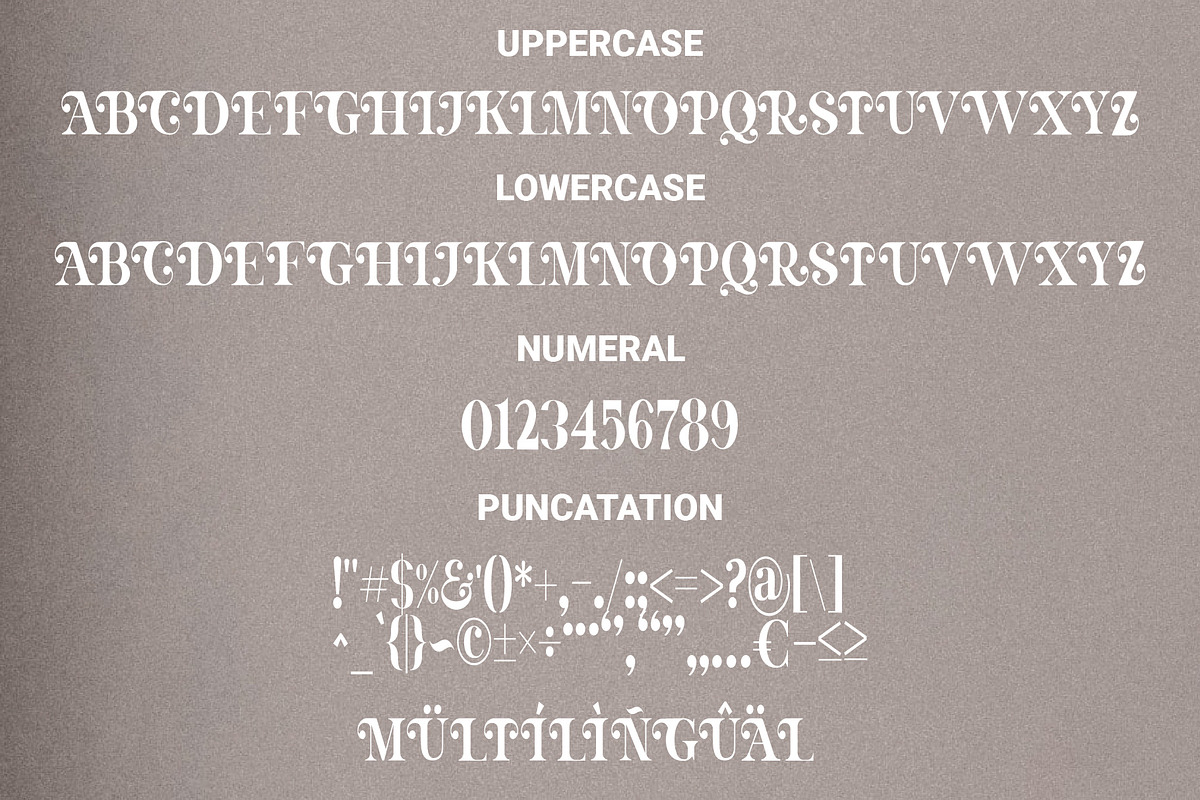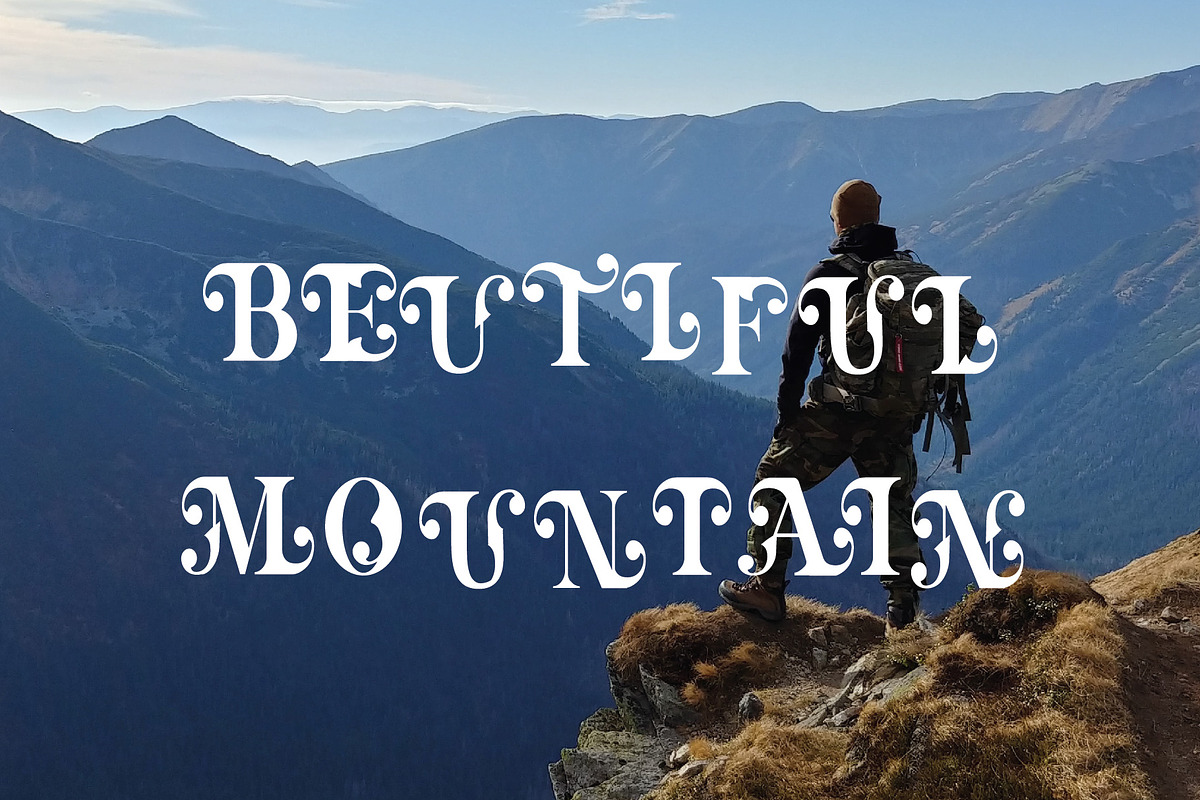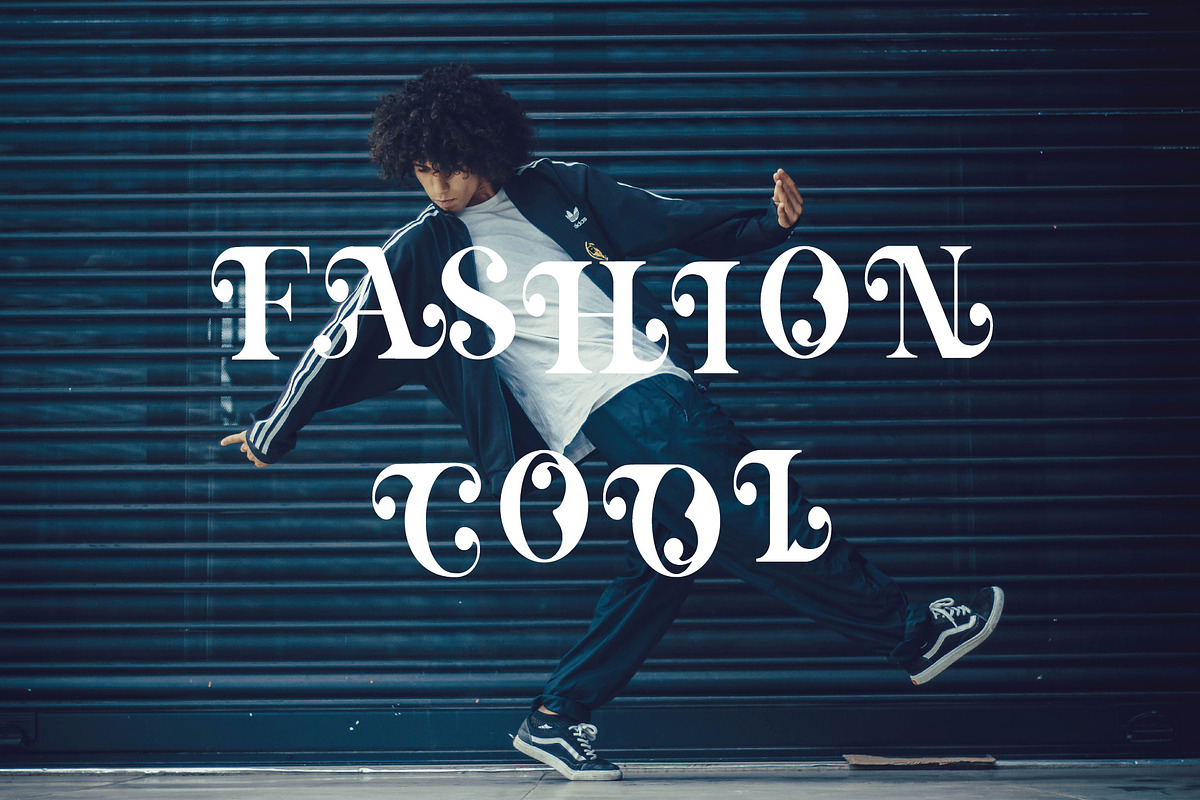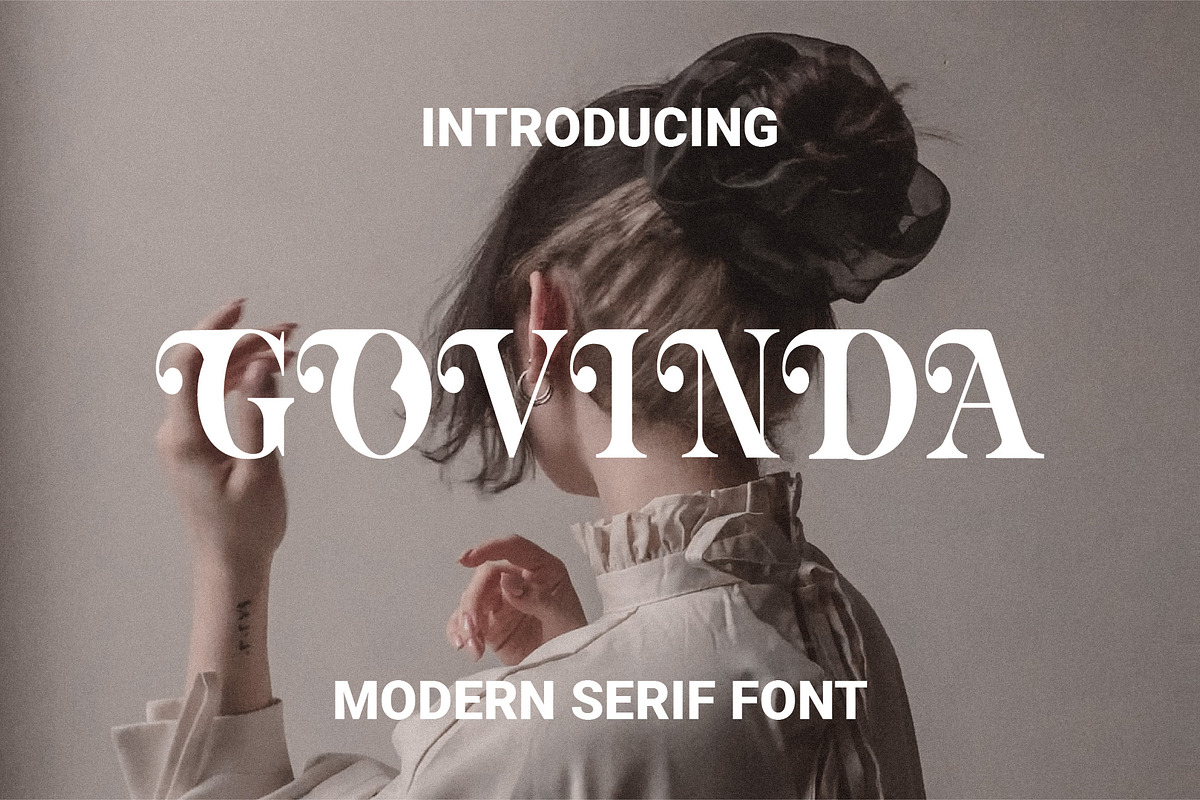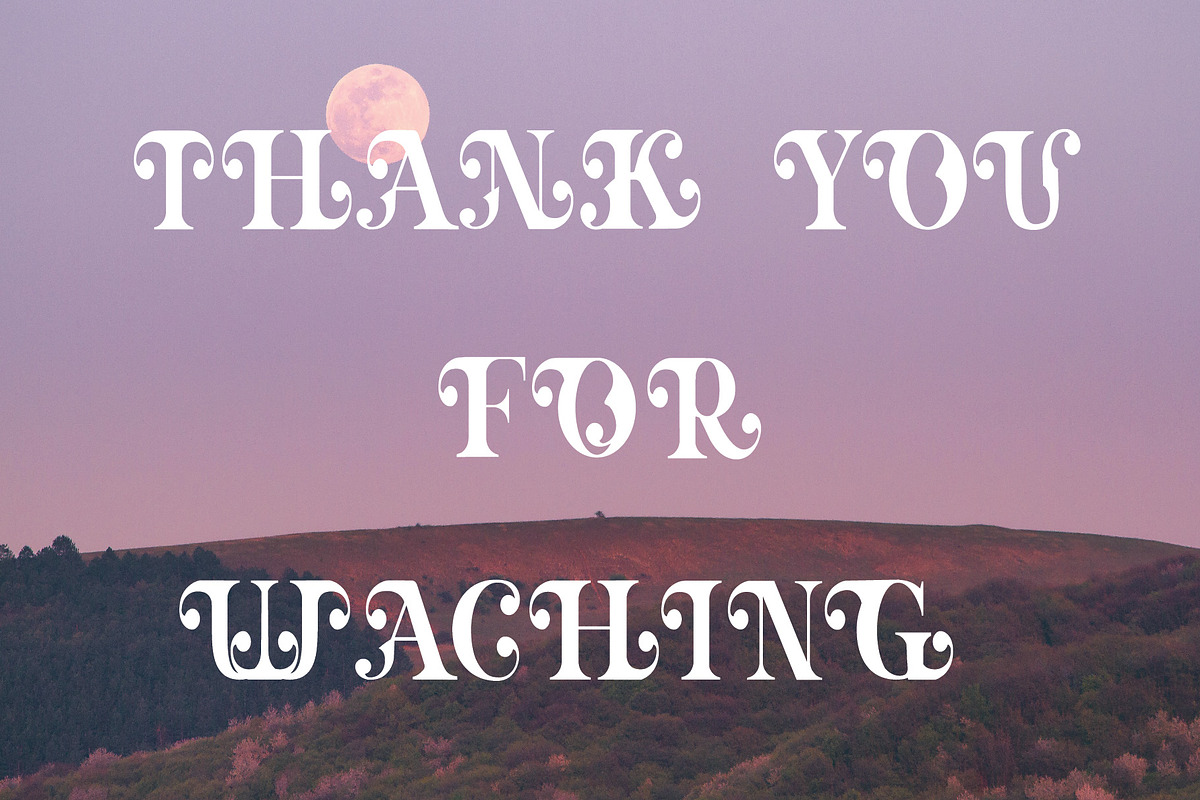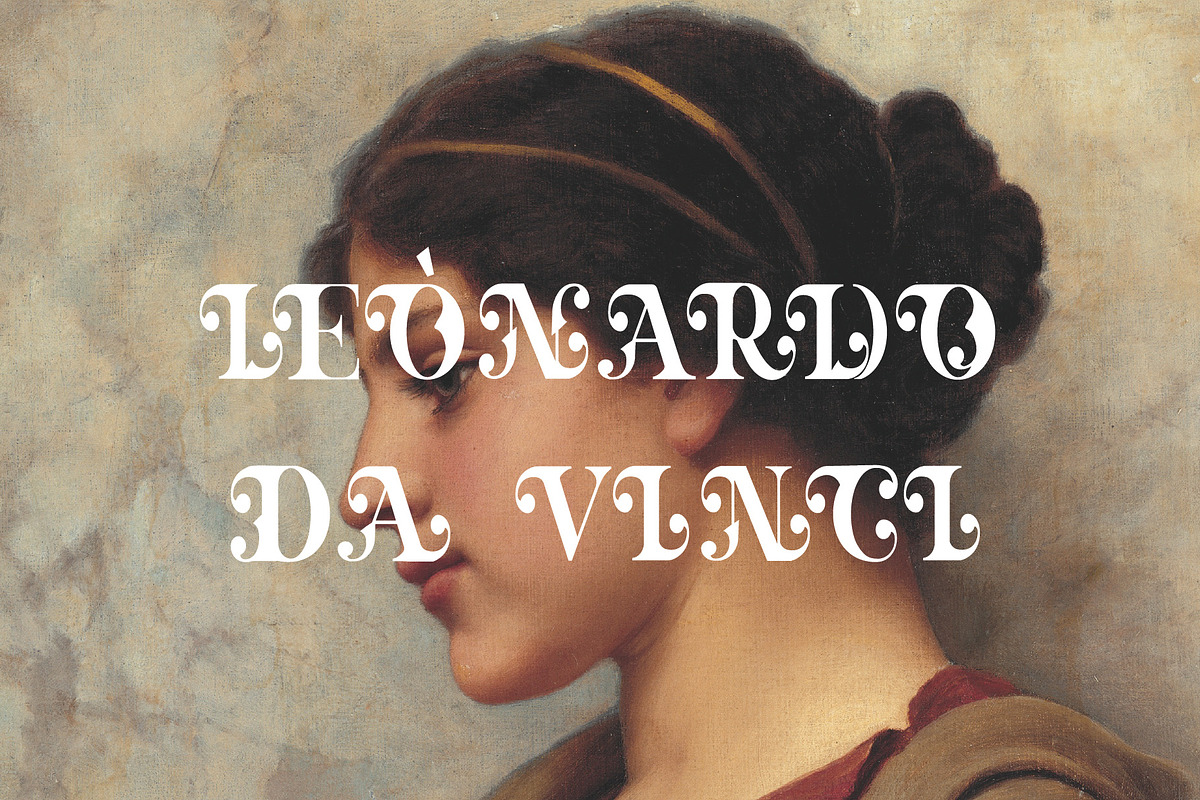
Govinda
Govinda is a type of serif font that is made with the addition of circle ornaments in each corner so that it gives a different impression, this font is suitable for writing labels for food or drink brands, screen printing clothes or anything else according to your needs. File TTF and OTT